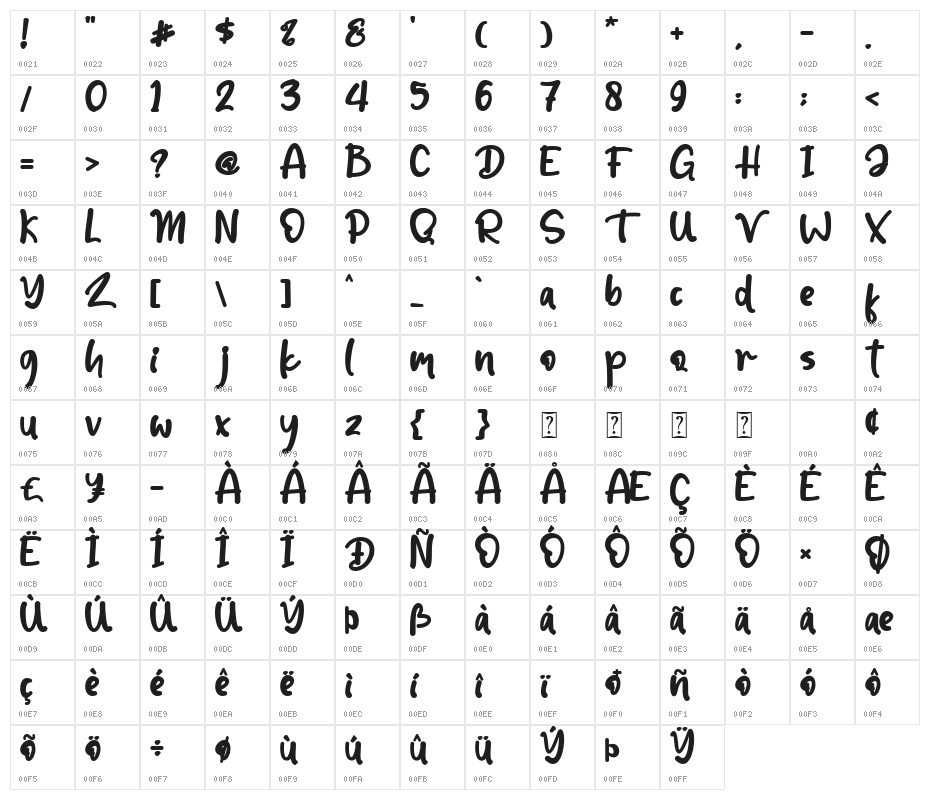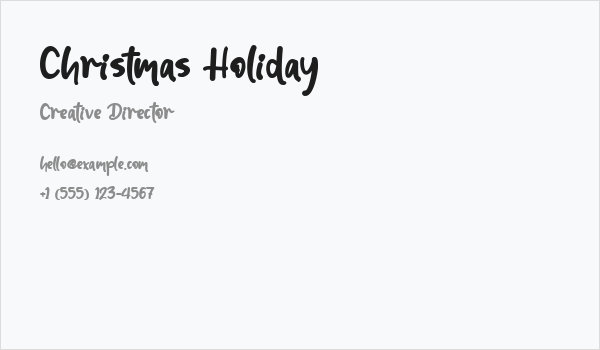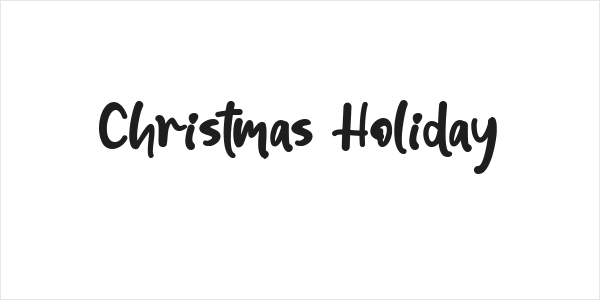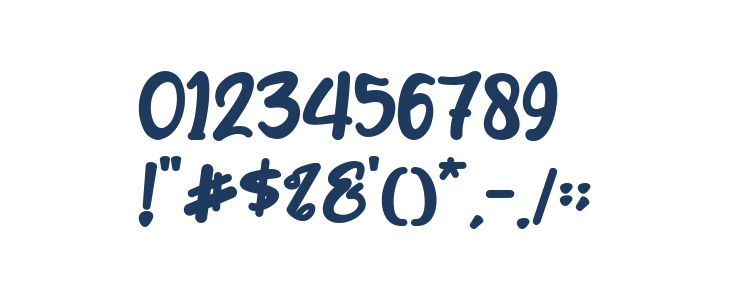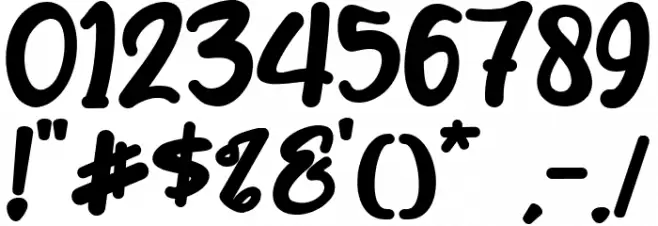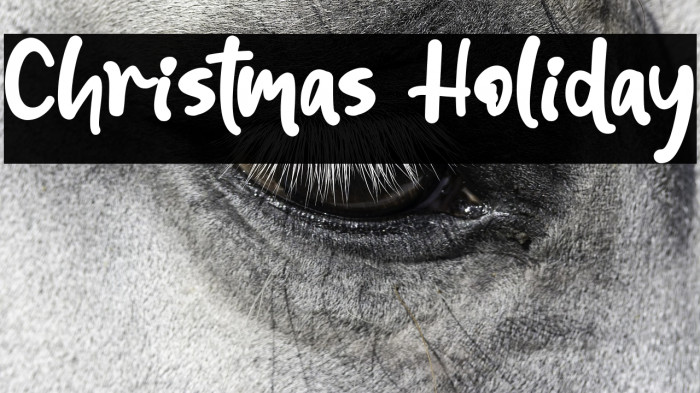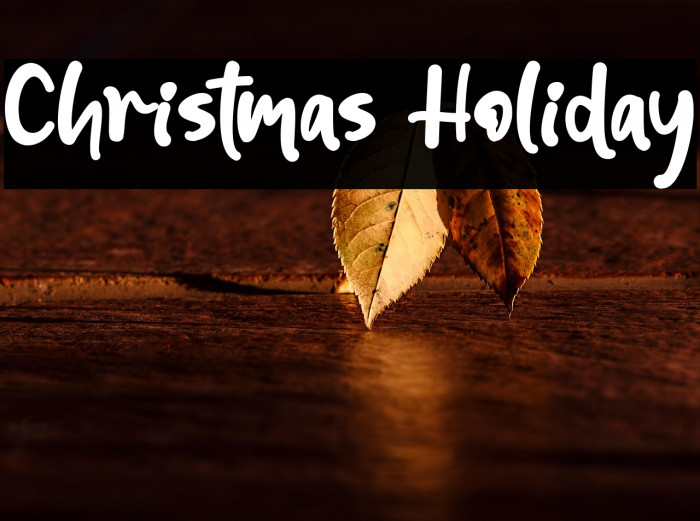
Christmas Holiday Font
This font features a playful and festive style, reminiscent of handwritten script with a lively and dynamic flow. The uppercase letters are bold and rounded, giving a sense of warmth and friendliness. The lowercase letters maintain a consistent style, with some characters featuring unique loops and curves that add to the overall whimsical feel. The numbers are equally bold and rounded, ensuring readability while maintaining the playful aesthetic. Special characters are designed to complement the overall style, with a consistent thickness and rounded edges. This font is perfect for holiday-themed projects, conveying a sense of joy and celebration.
| Proposed Projects | Ideal for holiday cards, festive banners, party invitations, and seasonal marketing materials. |